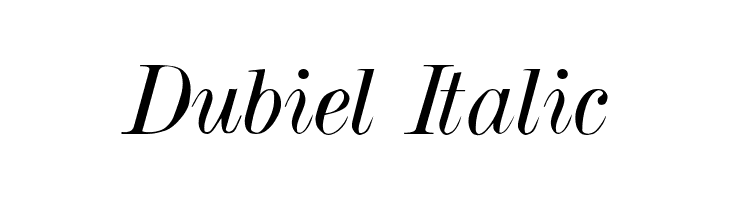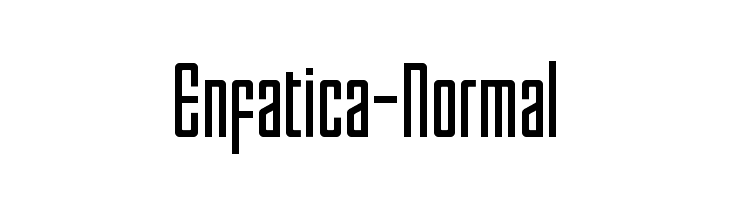
A decorative font with ornate uppercase and bold lowercase characters.
A dynamic, italicized font with a futuristic and angular design.
A decorative blackletter font with ornate flourishes and high contrast.
A bold, heavy font with thick strokes and a playful, rounded style.
A modern, geometric font with elegant curves and strong lines.
A bold, serif font with geometric elements and sharp serifs.
A playful, bold font with a hand-drawn, rounded style.
A bold, geometric font with characters enclosed in circles, offering a playful and modern look.
A bold, modern font with a strong and playful character.
A bold, jagged, and condensed font with an energetic and aggressive style.
A bold, playful font with zigzag edges and striped interiors.
A modern, elegant script font with flowing, cursive characters.
An elegant, classic font with sharp serifs and a refined style.
A dynamic and elegant script font with flowing, cursive letterforms.
A textured, nature-inspired font with a rugged, organic appearance.
A bold, modern sans-serif font with excellent legibility.
A bold, playful font with decorative, rounded letterforms.
A bold, gothic-style font with sharp, angular edges and dramatic flair.
A clean, modern sans-serif font with smooth curves and uniform stroke width.
A bold, angular font with a distressed, dynamic style.
A bold slab serif font with thick strokes and rounded edges, perfect for impactful designs.
A bold, italic, futuristic font with angular, geometric characters.
A bold, modern font with tall, condensed characters and strong vertical emphasis.
A whimsical and decorative font with ornate, hand-drawn letterforms.
A playful, whimsical font with bold, irregular strokes and a lively appearance.
A playful, handwritten font with rounded, consistent strokes and a friendly appearance.